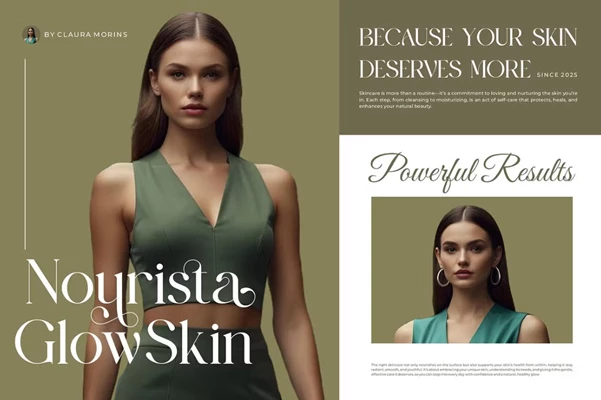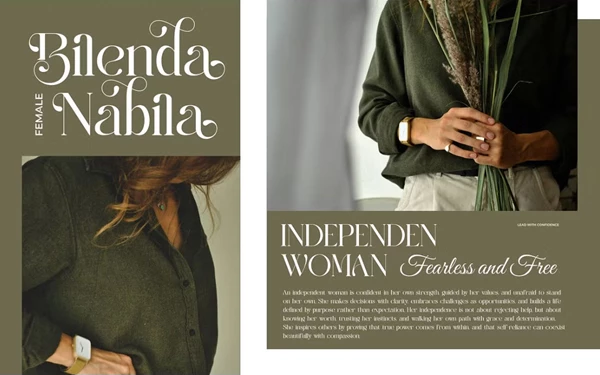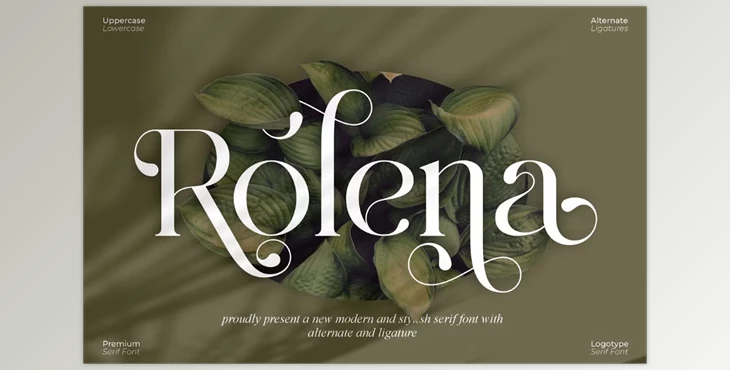
Rolena Modern Serif Font:
Rolena Modern Serif Font is an incredibly timeless and modern font that works on various branding or logo projects. Thanks to its beautiful design, Rolena works great for invitation cards, logos, movie titles, business cards, book covers, and any other creative project that requires elements of modernity and class.
Rolena Serif is a smooth serif font that adds aesthetic appeal and an air of sophistication that feels timeless. It's beautiful ligatures easily blend into any project that seeks to create a new and modern appeal!
Some great features of Rolena Modern Serif Font:
- Stylish ligatures
- Includes upper and lower cases
- Full numerical and punctuation set